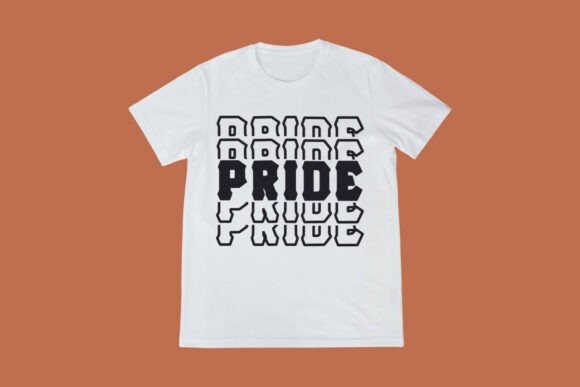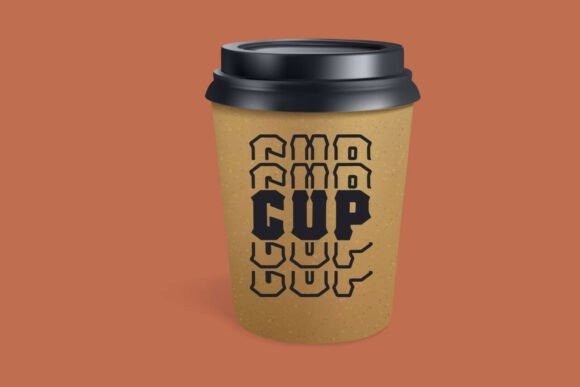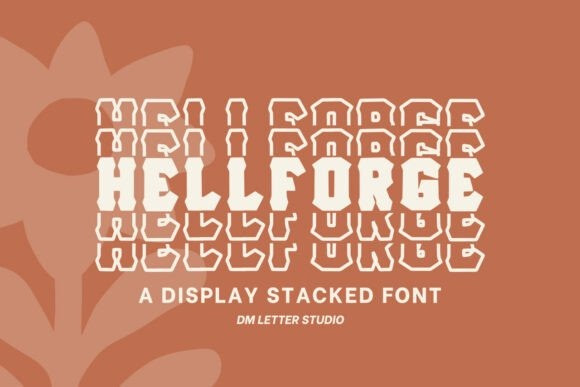
Hell Forge Stacked Font
Hell Forge Stacked Font is a bold stacked display font built for tight spaces and hard impact. Letters stand tall, tight, and readable, so short words turn into badge-like marks. Because each line stacks cleanly, names, dates, and team initials fit on tags, sleeves, caps, and thumbnails without losing power. Therefore, you can use it for jerseys, tool labels, biker patches, gaming graphics, and rugged product logos. Moreover, the geometry loves outlines, metallic foils, and laser cuts, which help your mockups look premium right away.
Why Hell Forge Stacked Font works
You need compact titles that still feel strong. This font gives you vertical rhythm with sharp edges and open counters. As a result, long surnames stay tidy, numbers align, and quick variants publish in minutes. Plus, the forms stay crisp on vinyl, screen print, embroidery, mockups, and engraving.
Fast setup, forged results